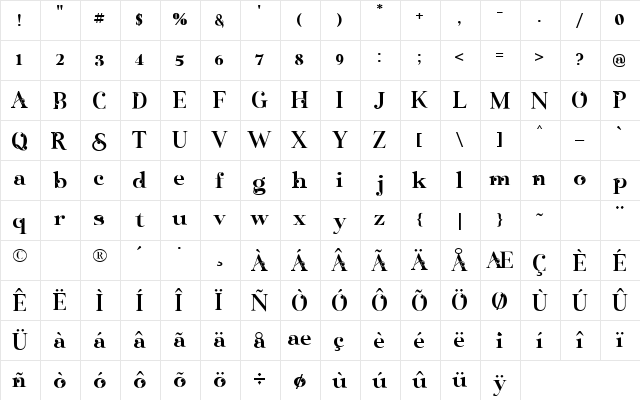
Sangi Serif Regular
| Foundry | 177Studio |
| Designer | 177Studio |
Design Context for Sangi Serif Typeface
Sangi Serif carries the refined structure of traditional serif typography, with bracketed terminals and considered proportions that communicate credibility and craft.